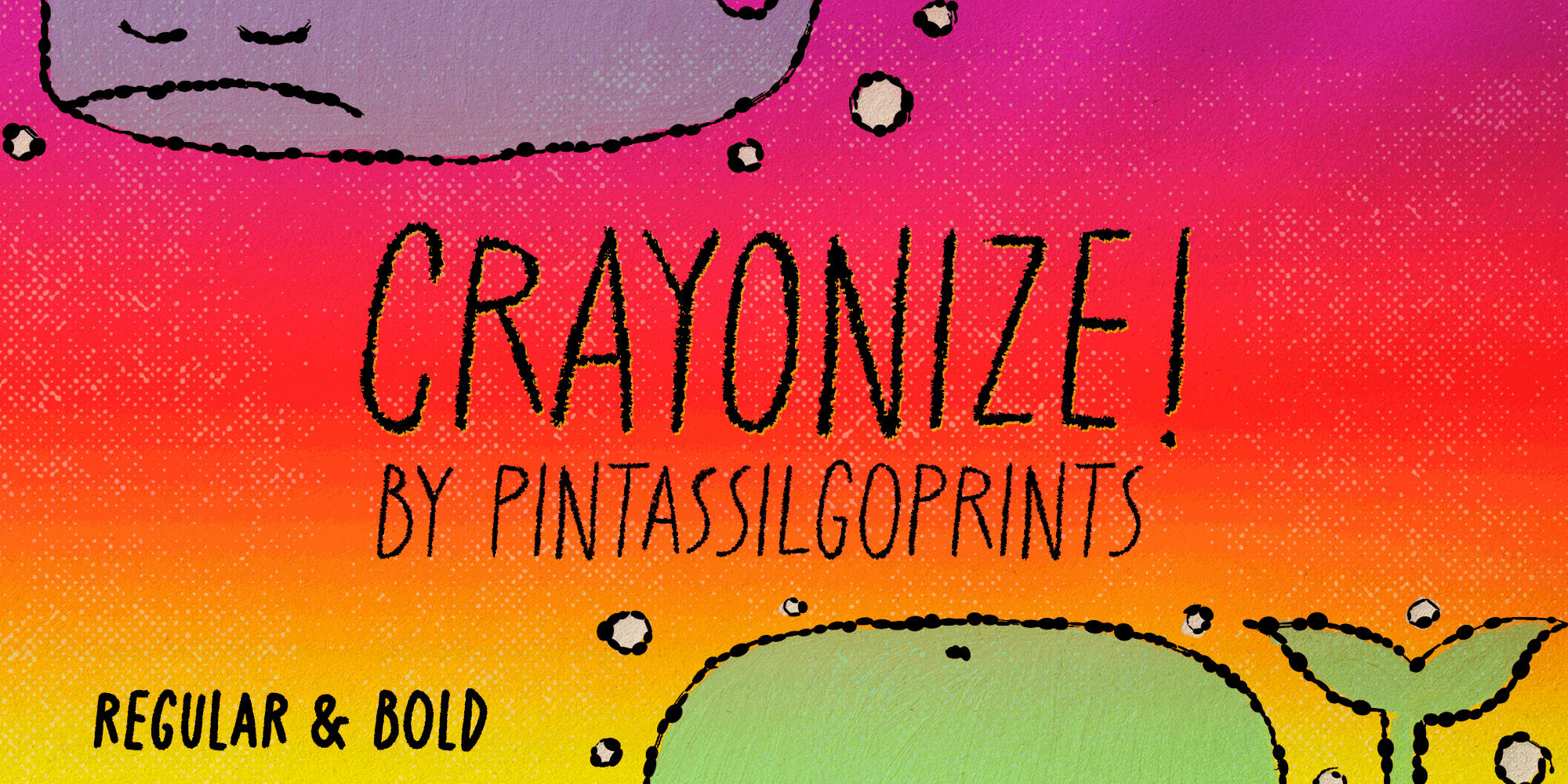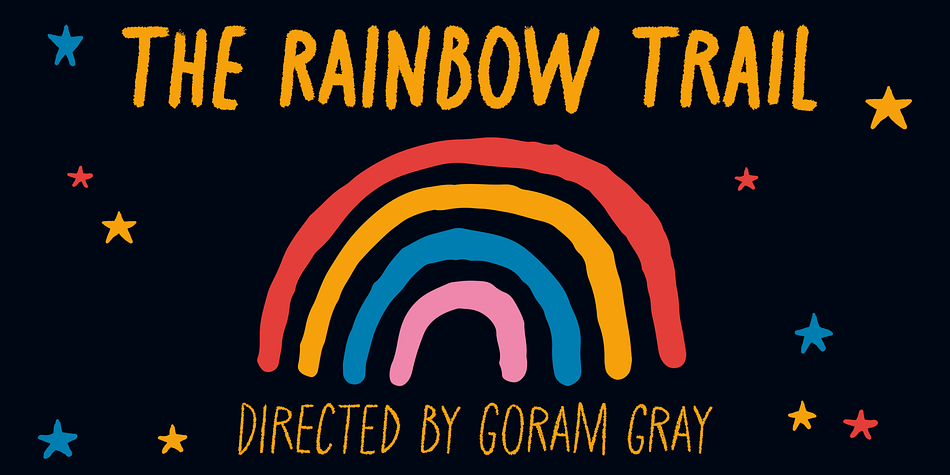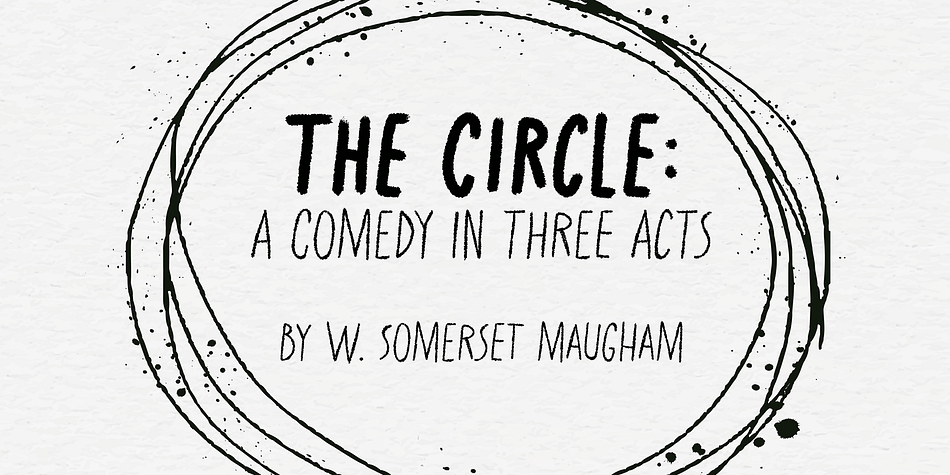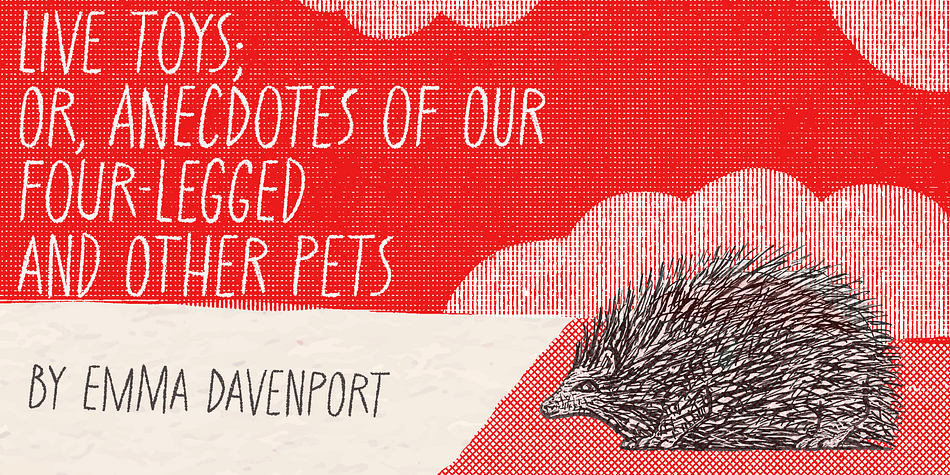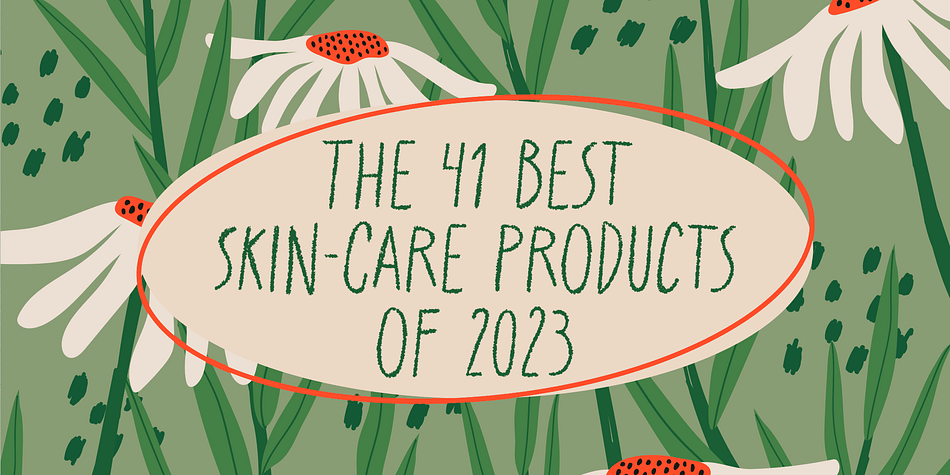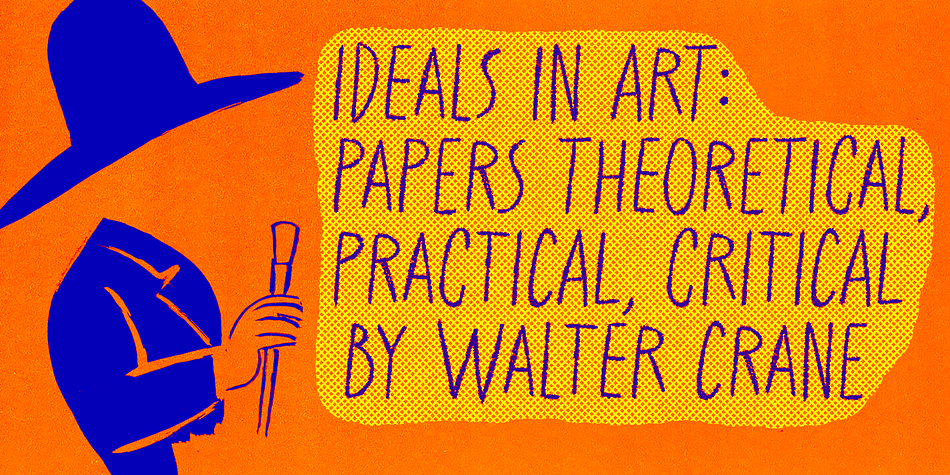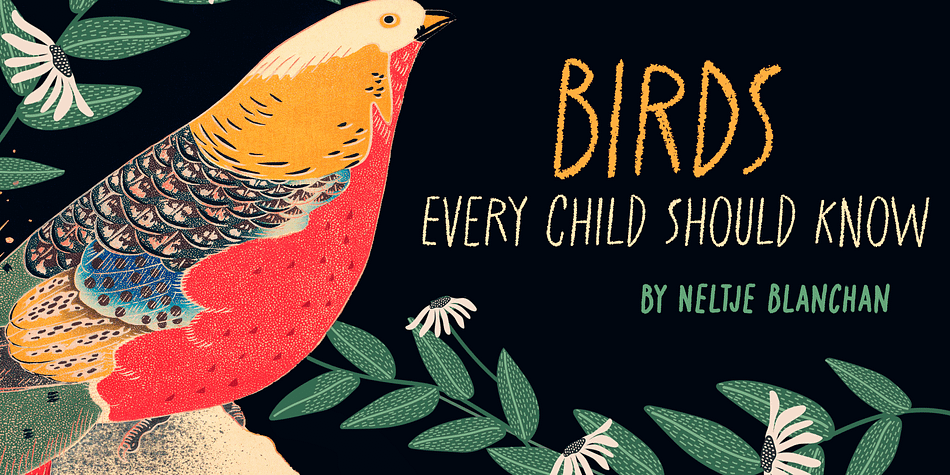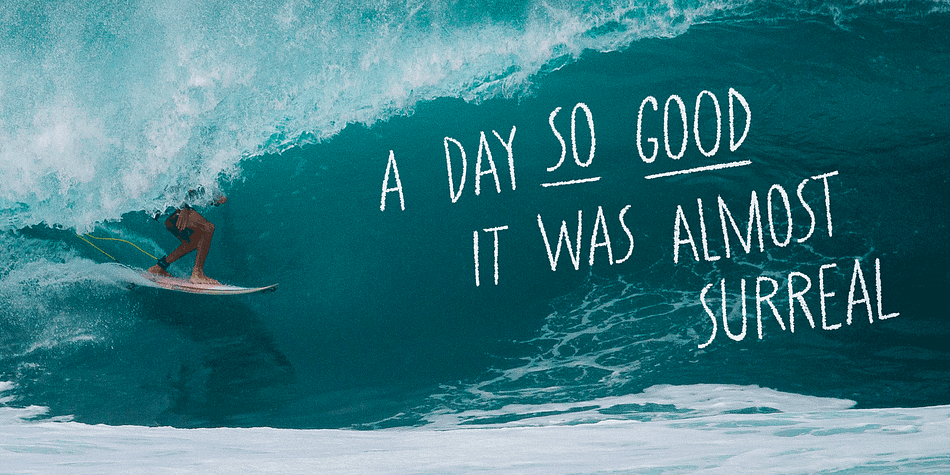
Crayonize
Designed by Ricardo Marcin and Erica Jung, Crayonize is a hand display, hand drawn and kids font family. This typeface has two styles and was published by PintassilgoPrints.
Crayonize is a casual handwritten font with a fresh crayon look, available in two weights. Both styles are all-caps with two options for each letter and numeral, for a natural, organic hand-lettered feel. Contextual alternates feature is included, making it easy to cycle the alternates.
Crayonize is excellent for display purposes and small chunks of text: packaging, books, apparel, greetings cards, opening titles, screens, the list has no end. Give it a try, have fun, and keep on creating!